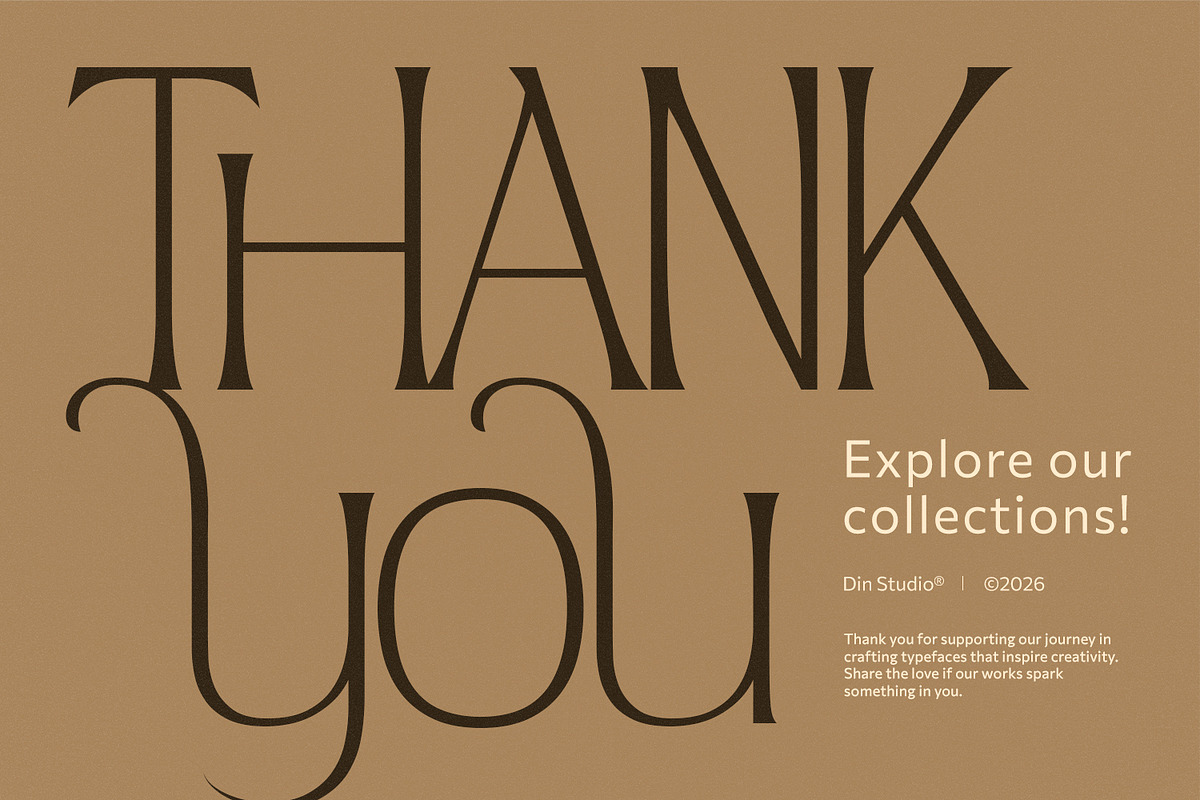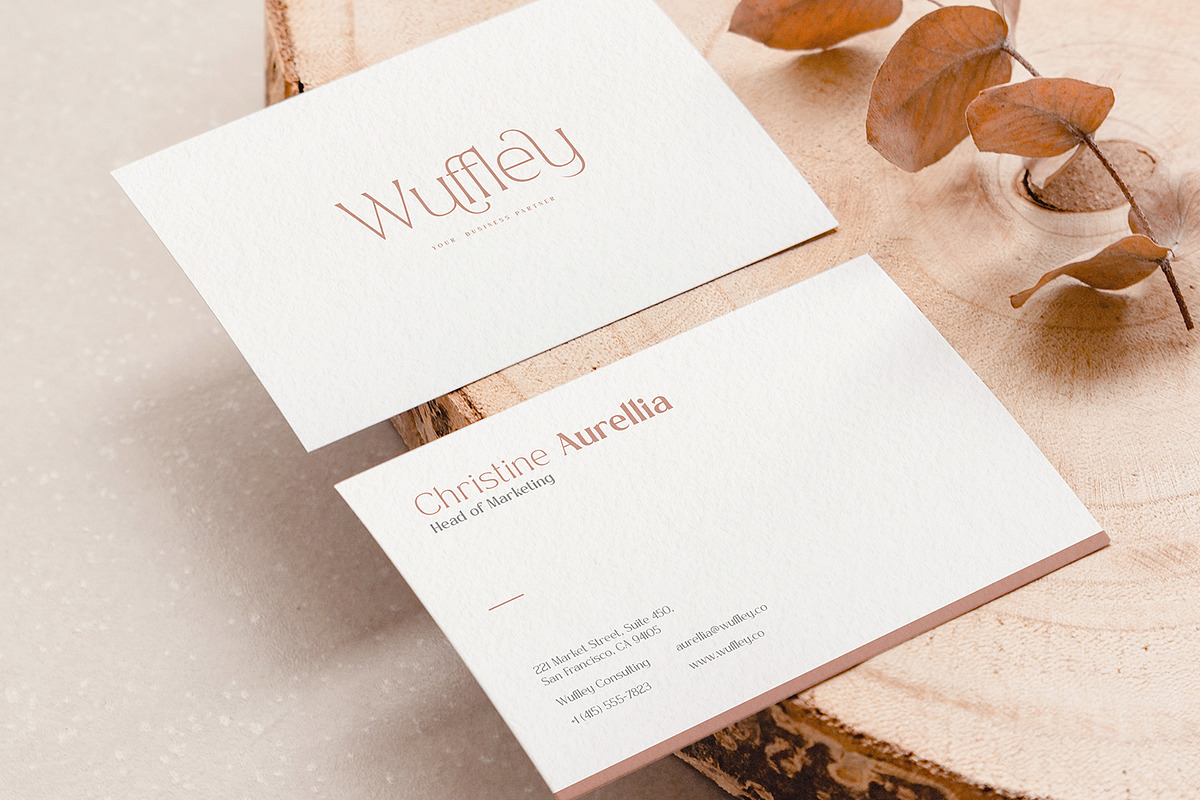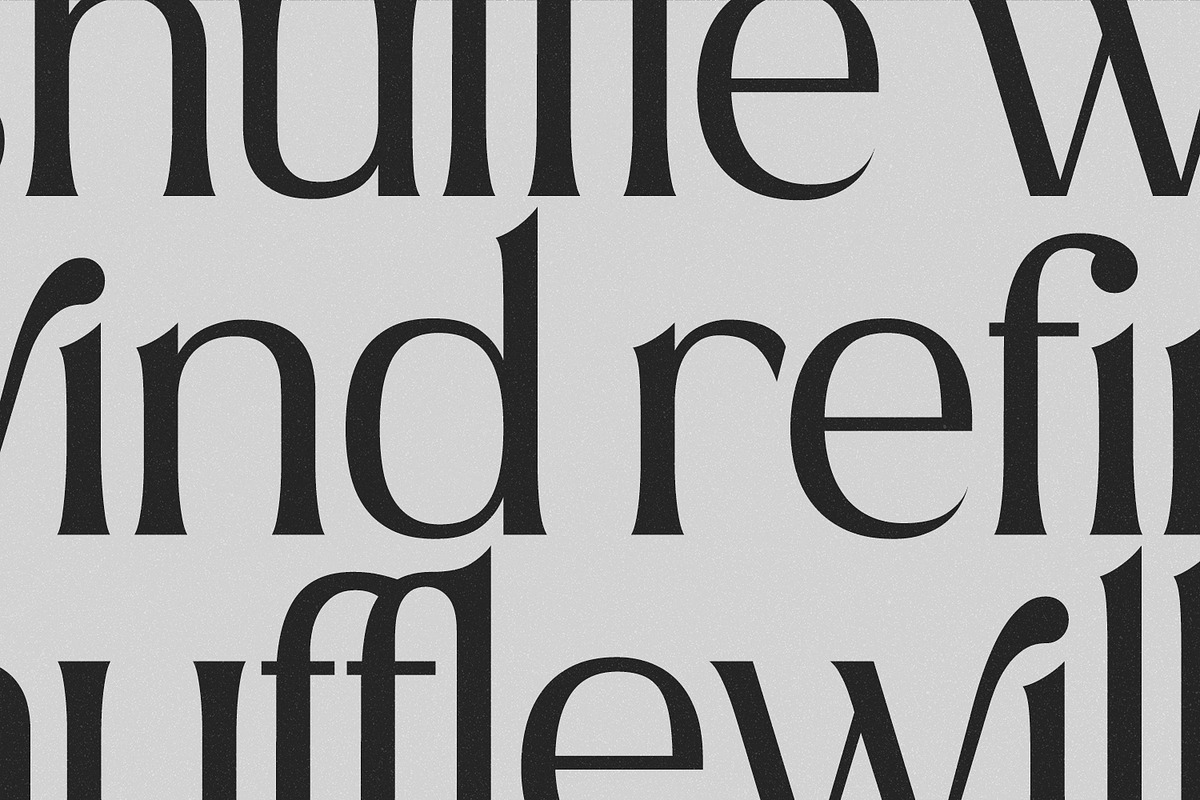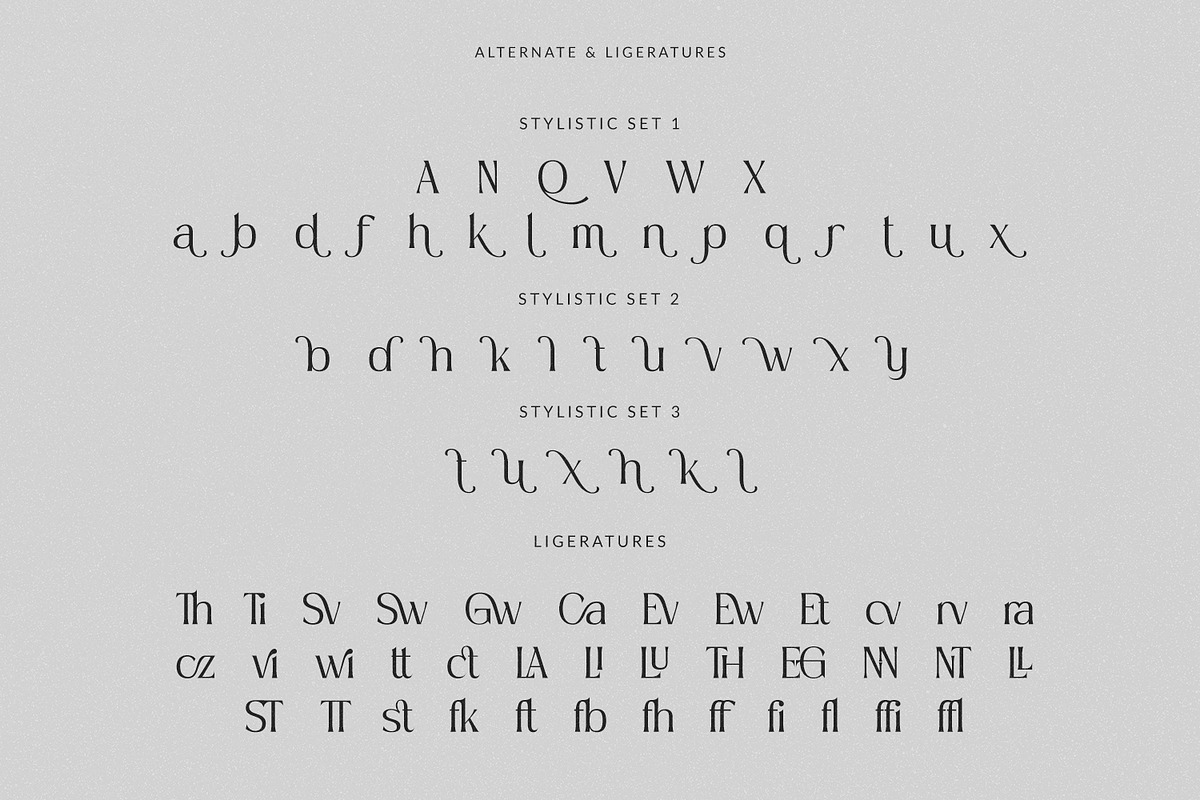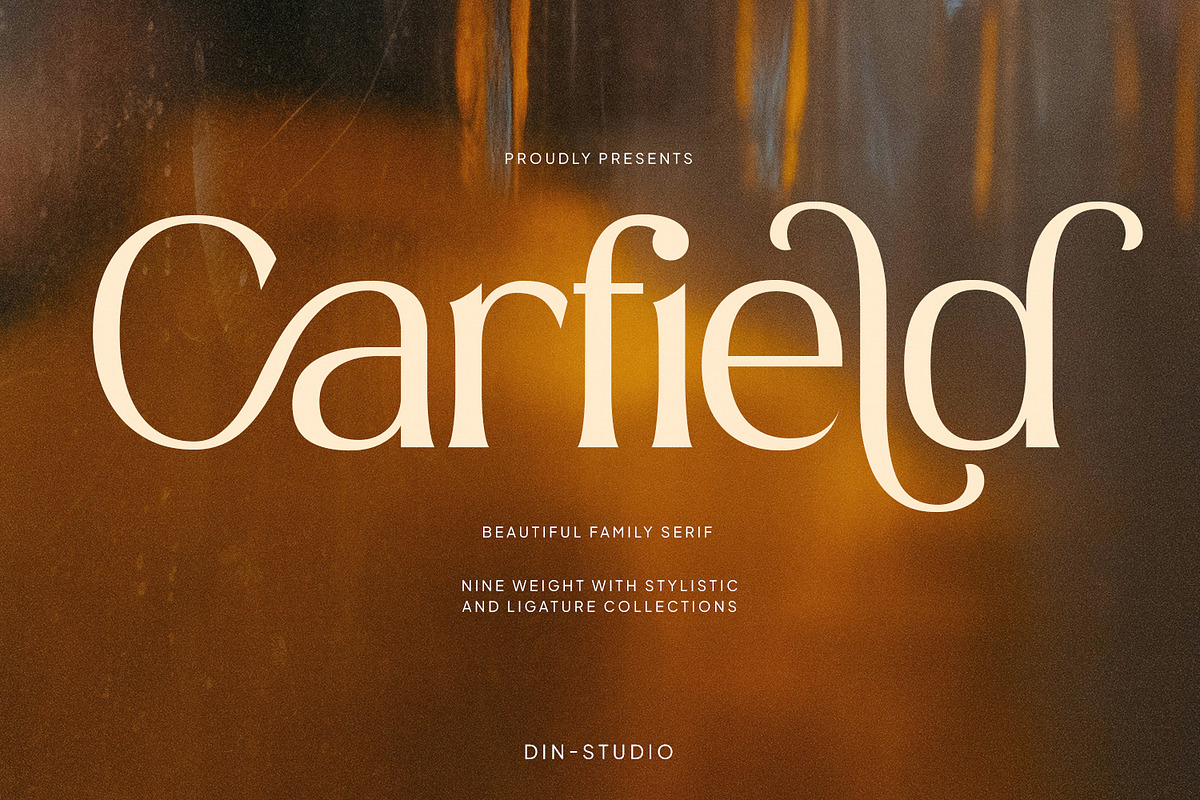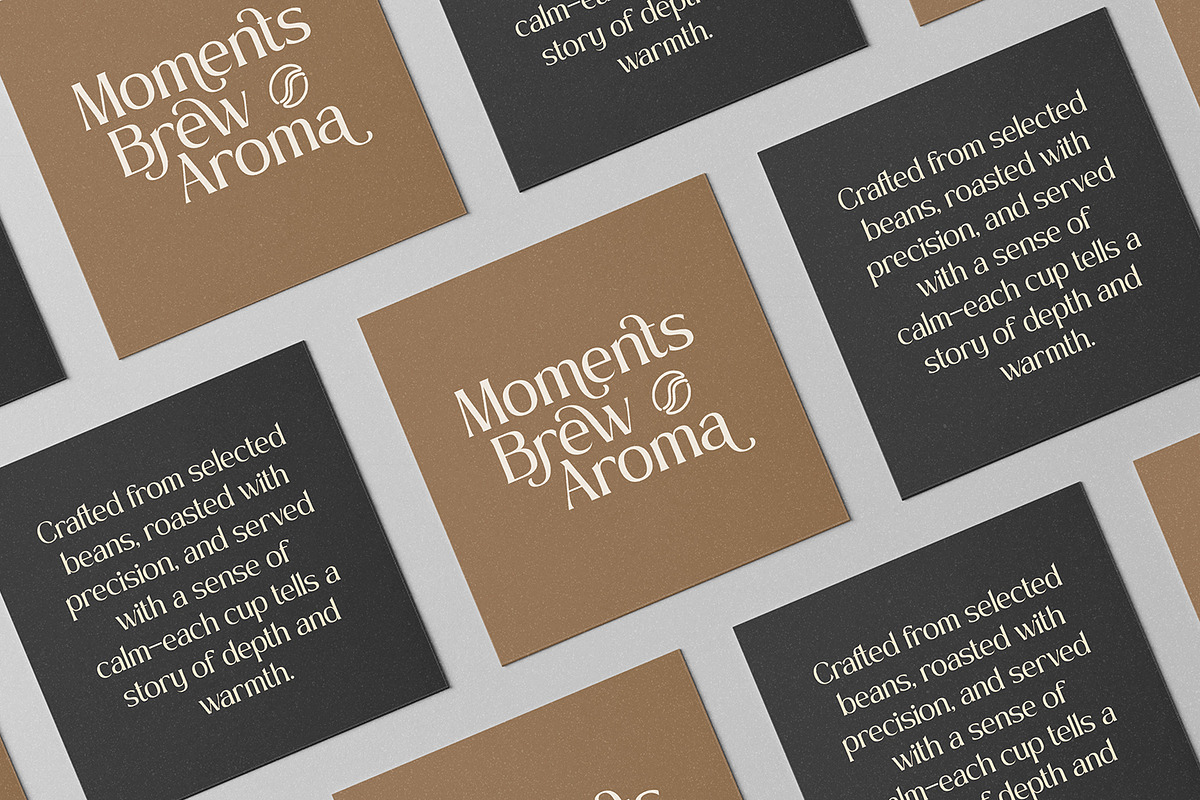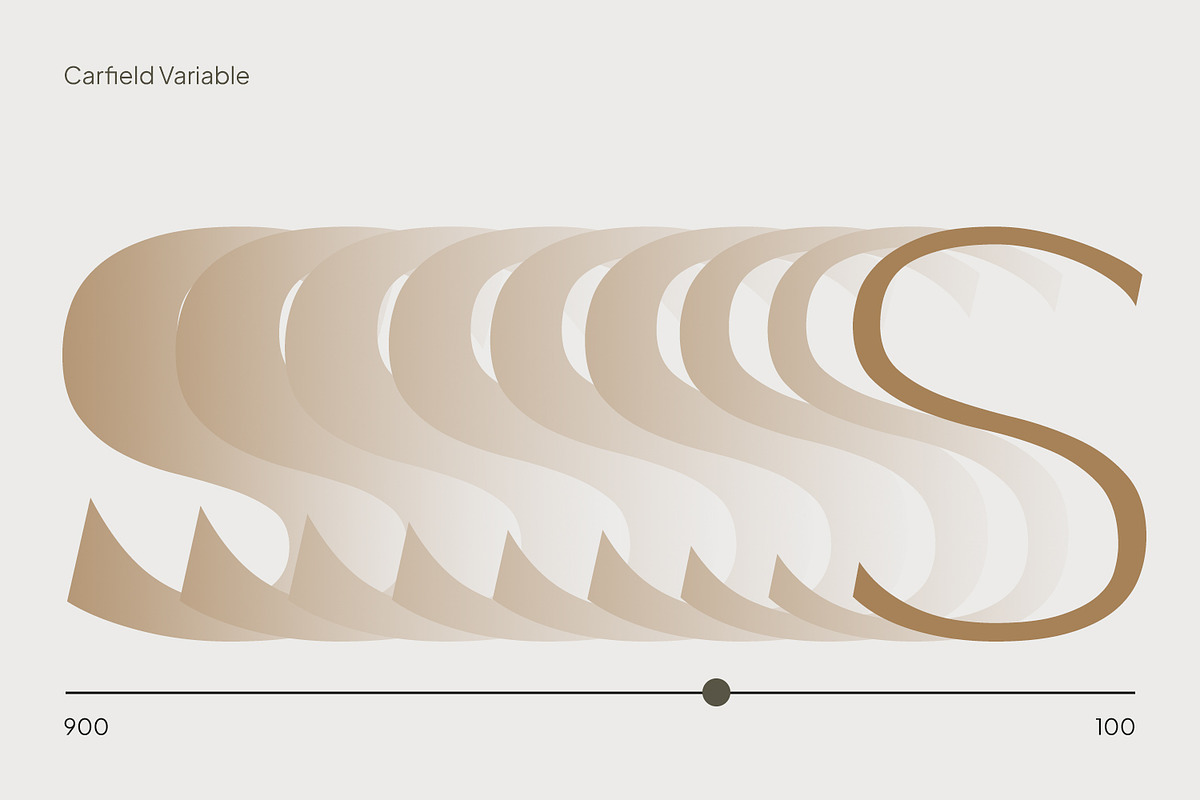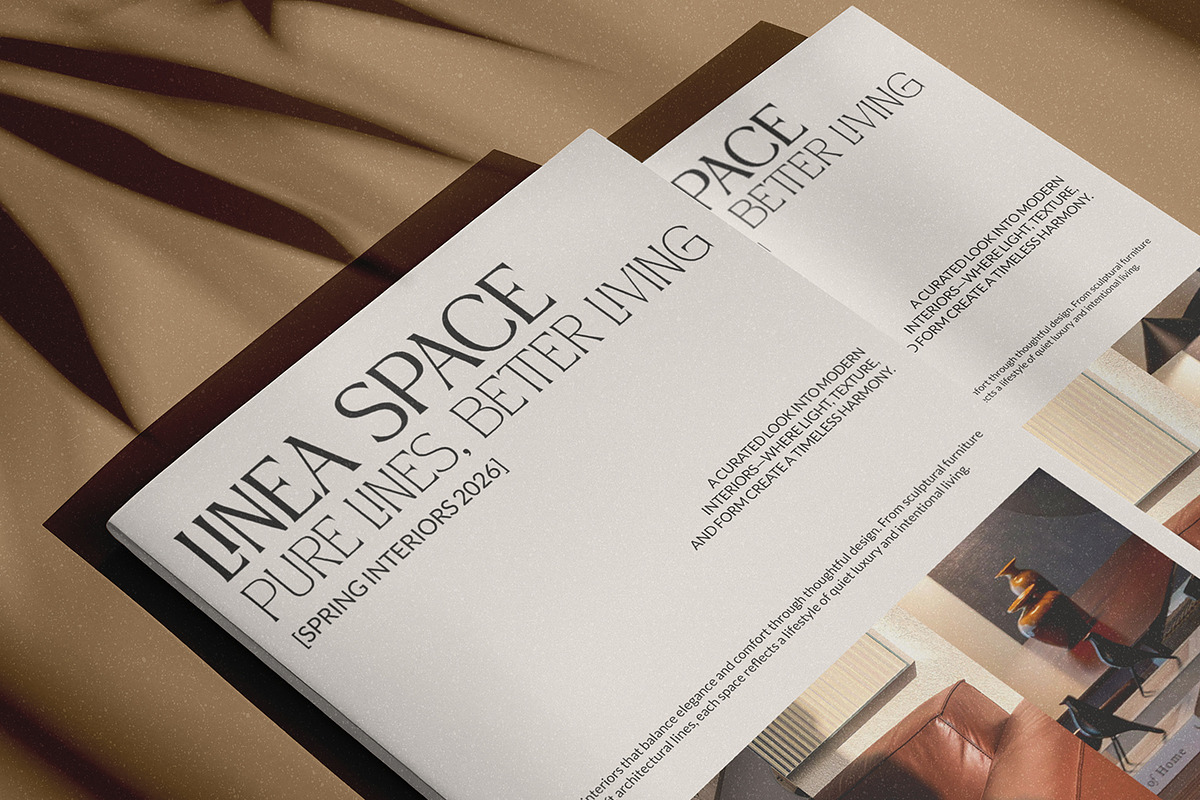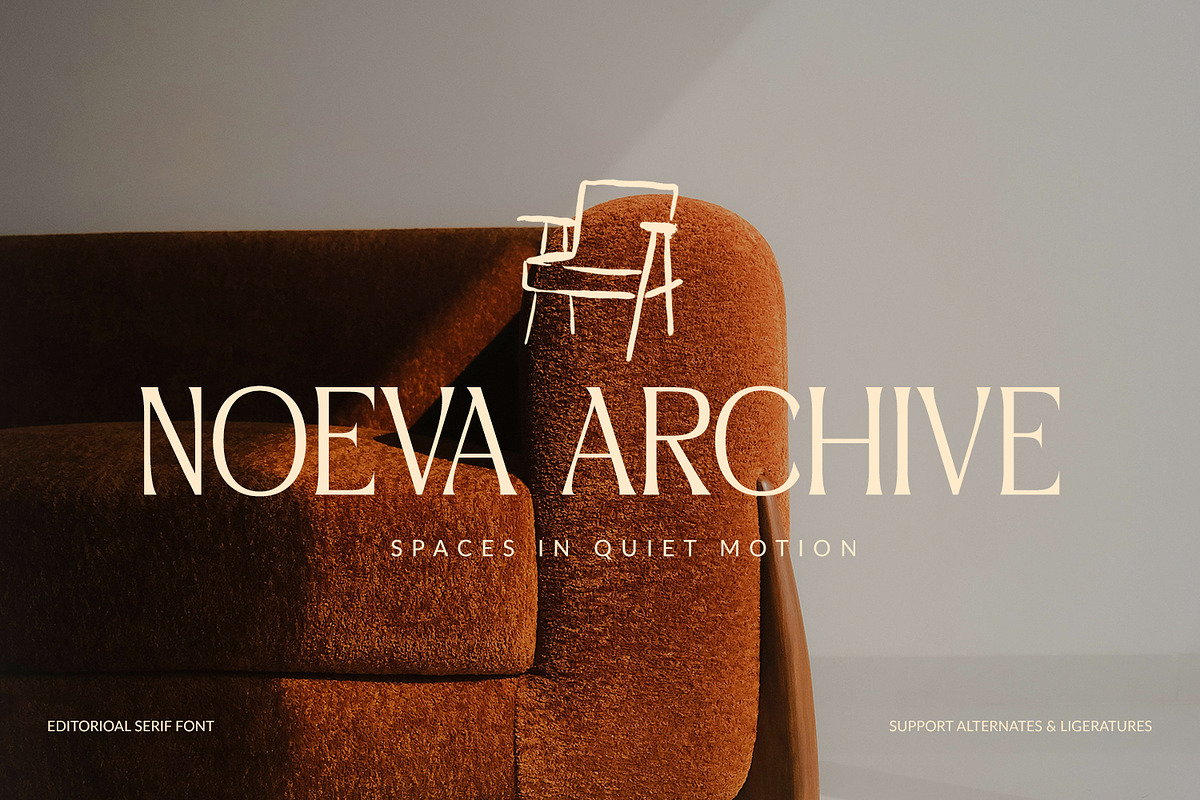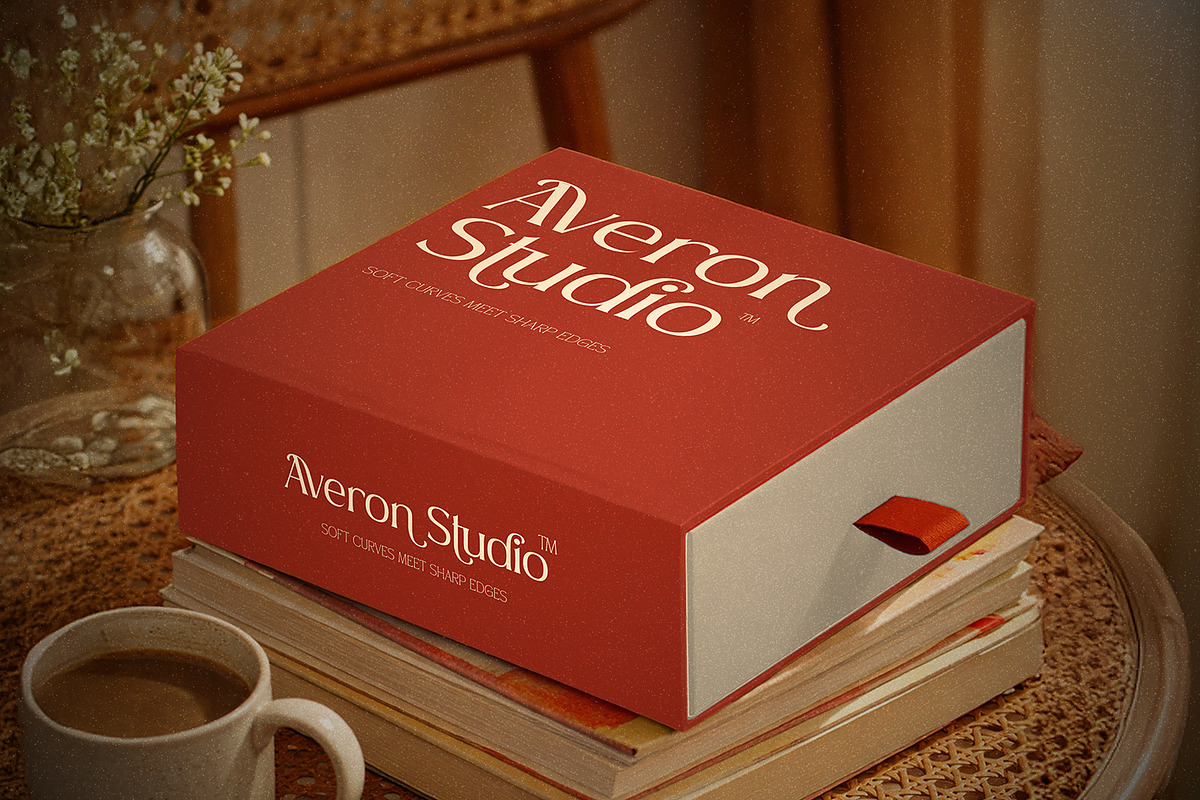
Carfield
Carfield is a versatile serif font family that combines simplicity, elegance, and modern functionality into one beautifully crafted type system. Carfield comes in different weights, from thin to black, providing exceptional flexibility for building strong and cohesive visual hierarchies. Its understated elegance makes it suitable for both contemporary and classic design styles, offering designers a reliable and sophisticated typography solution. In addition, enjoy the features here.
Stylistic Sets
Multilingual Supports
Numerals and Punctuations
Carfield fits in logos, quotes, name cards, branding, posters, and many more designs. Find out more ways to use this font by taking a look at the font preview.